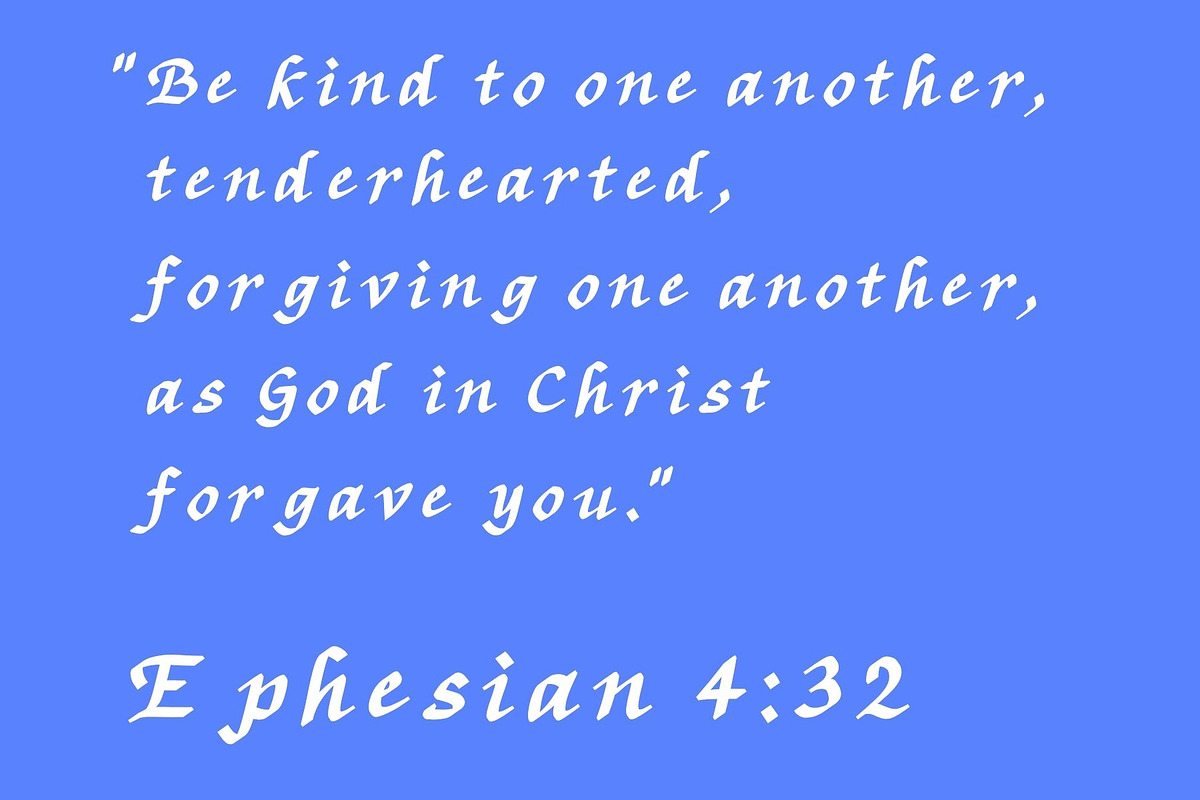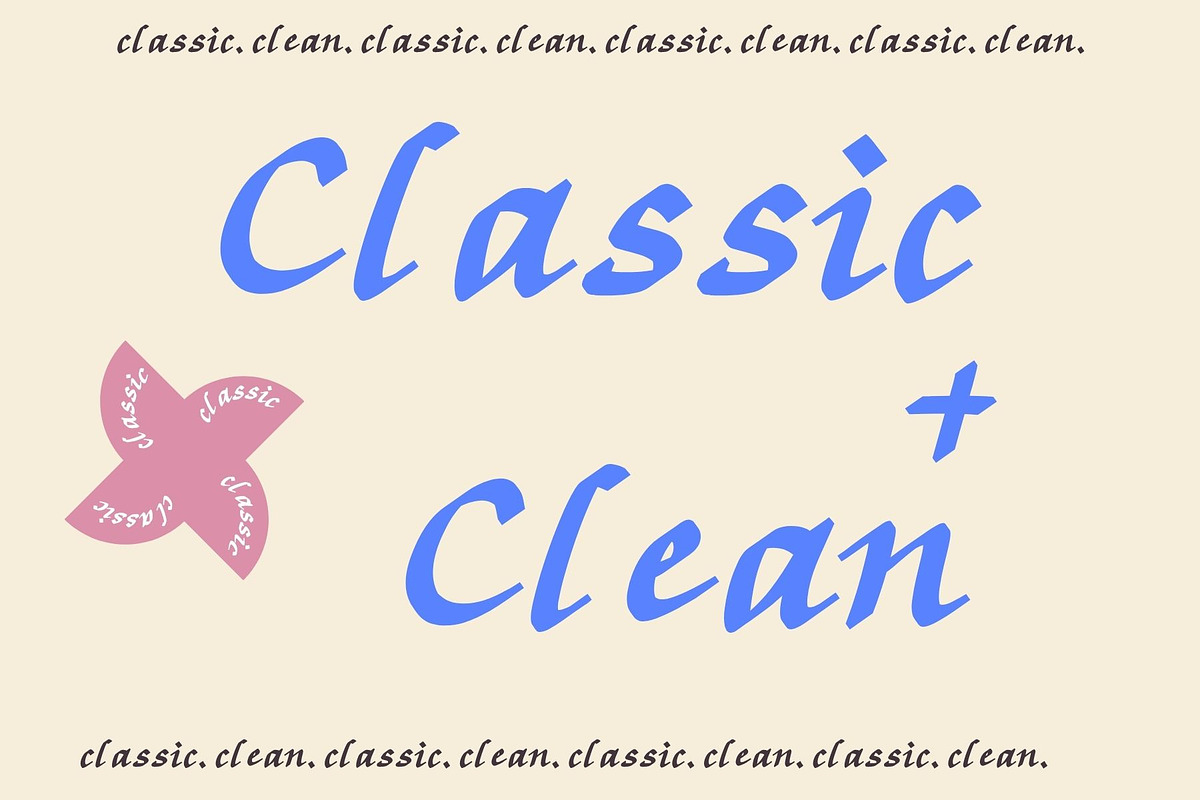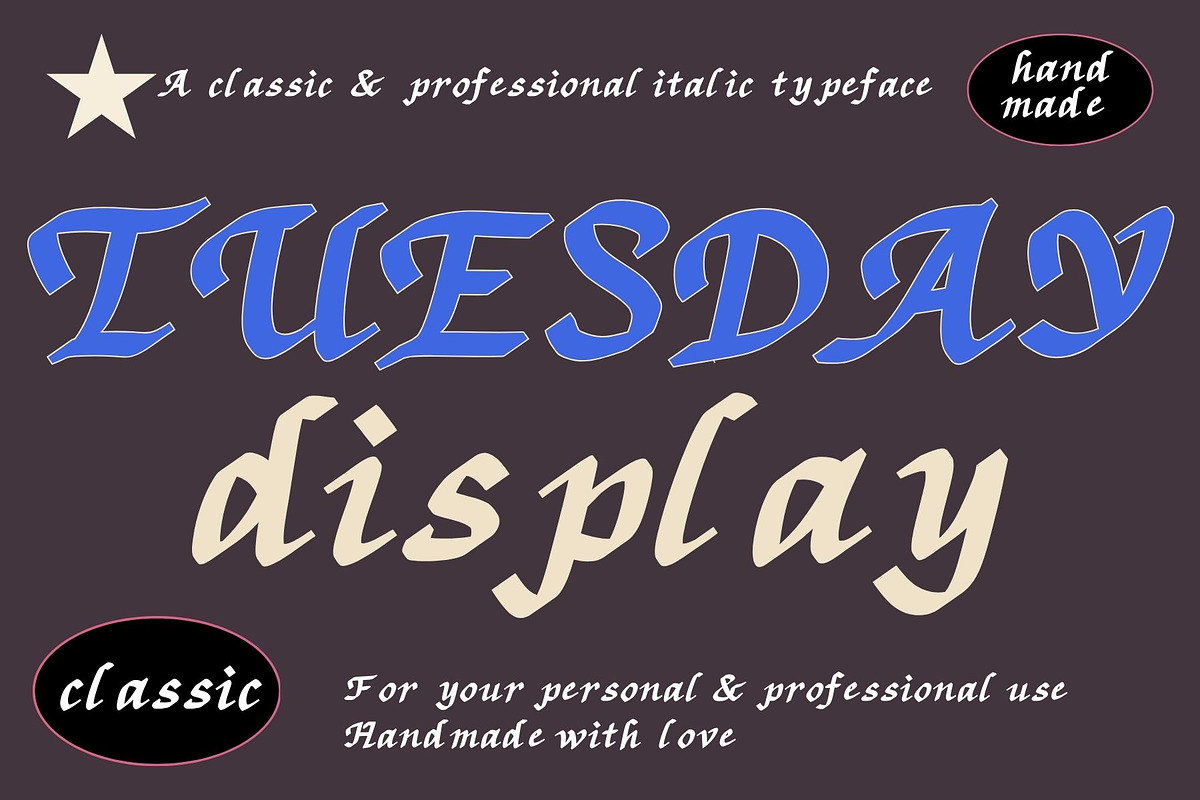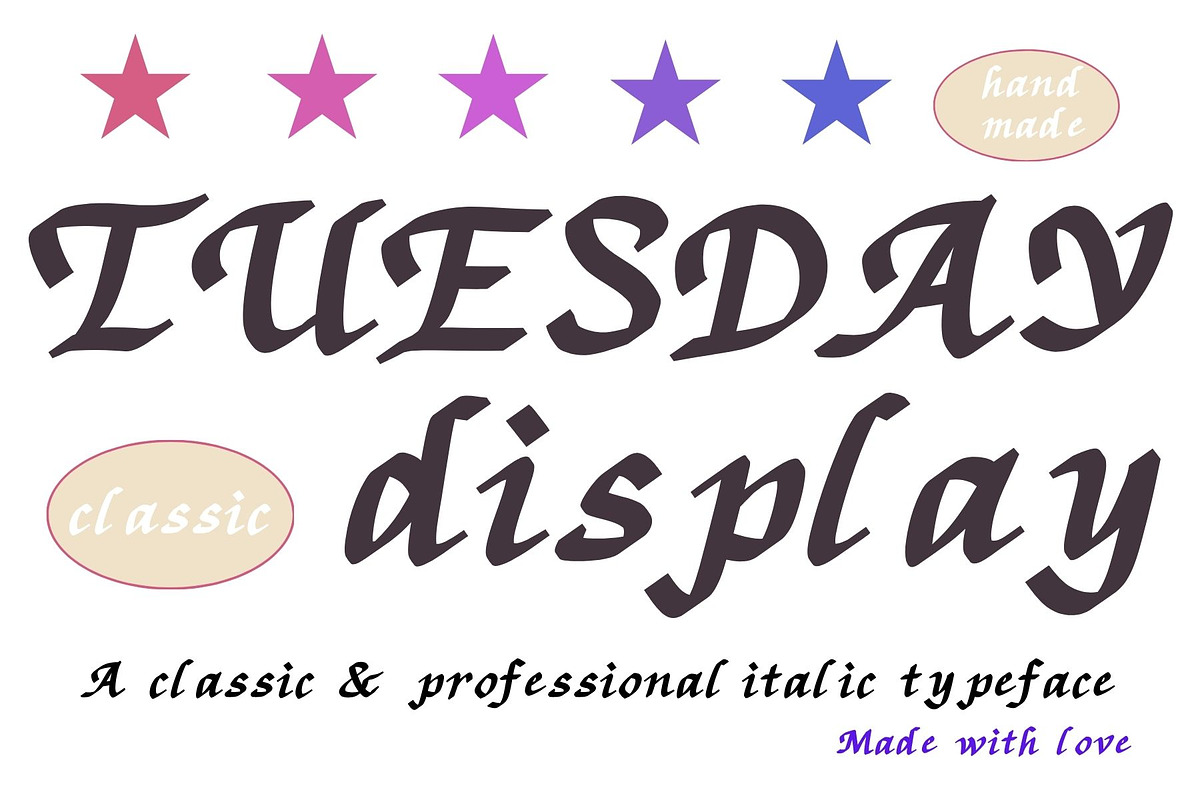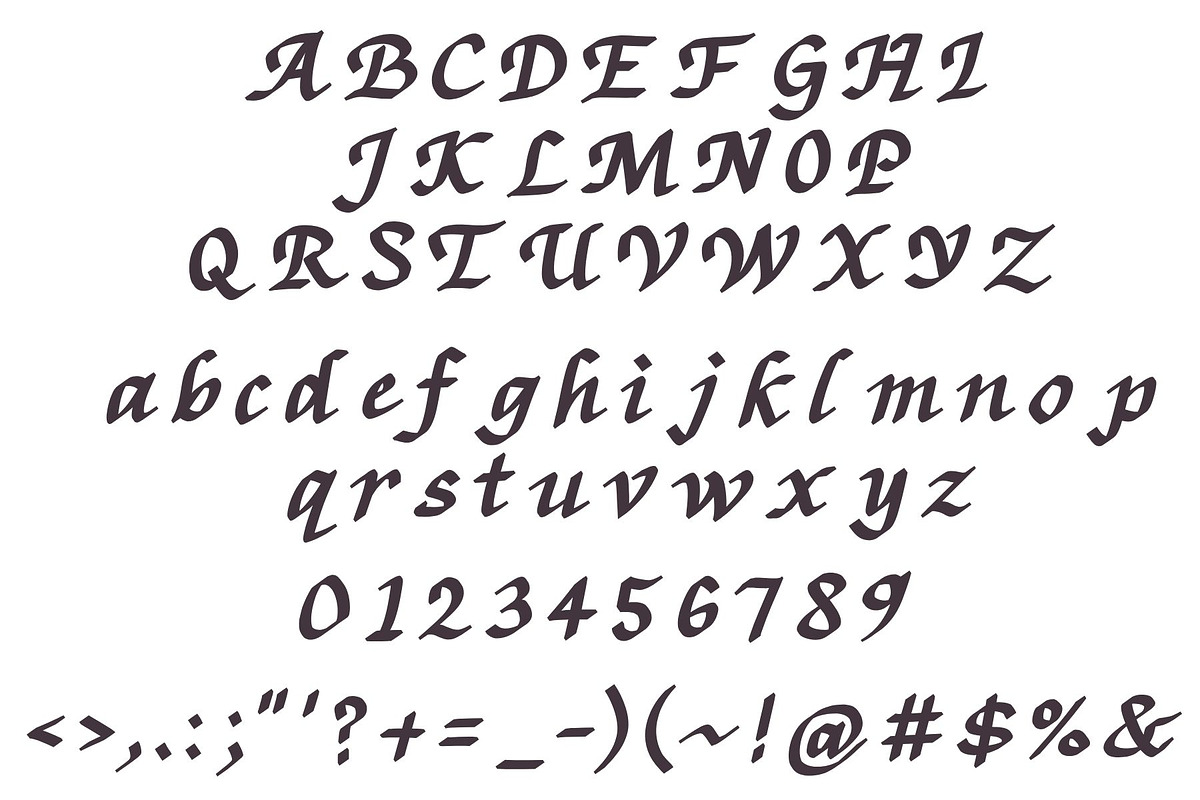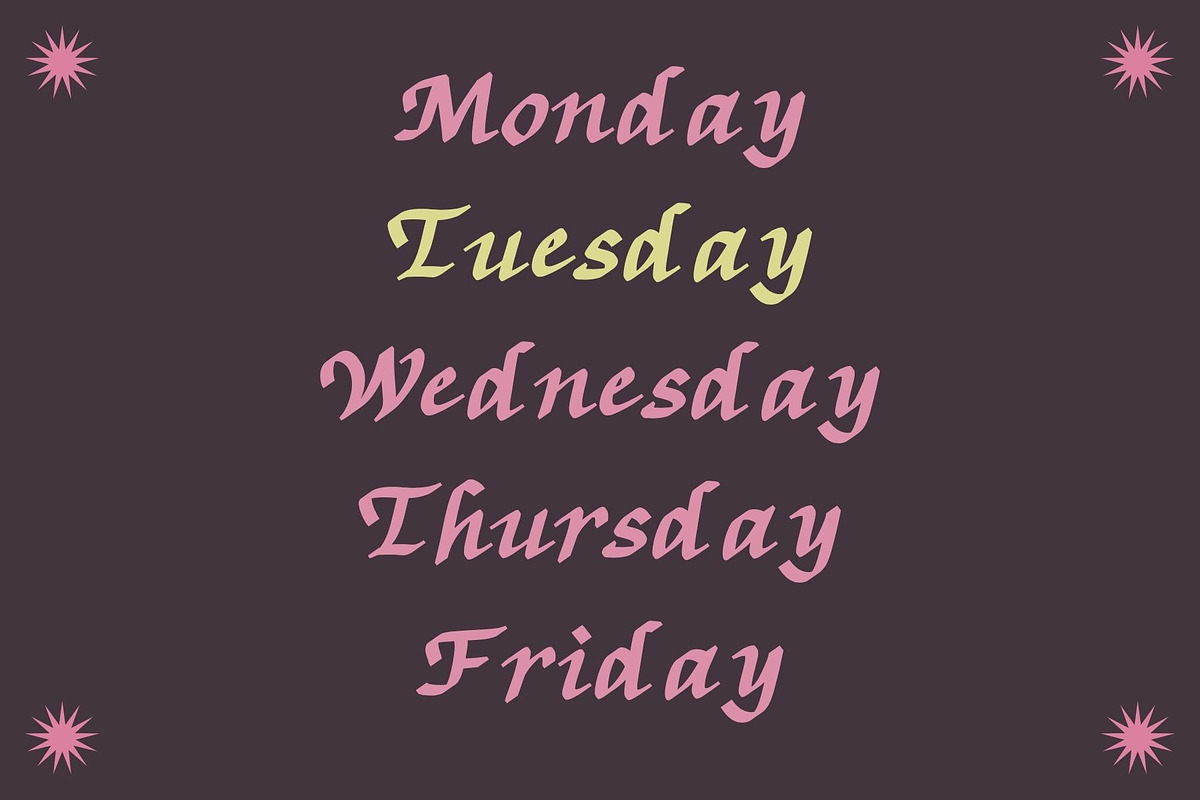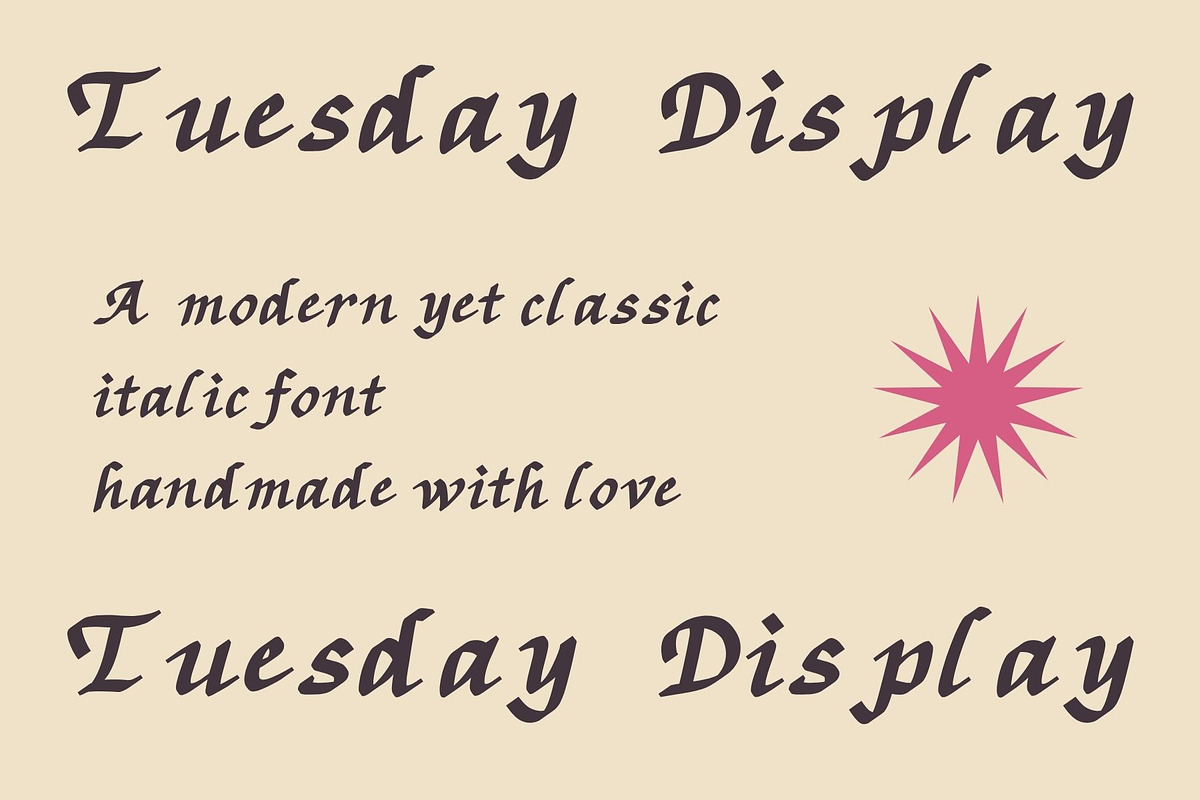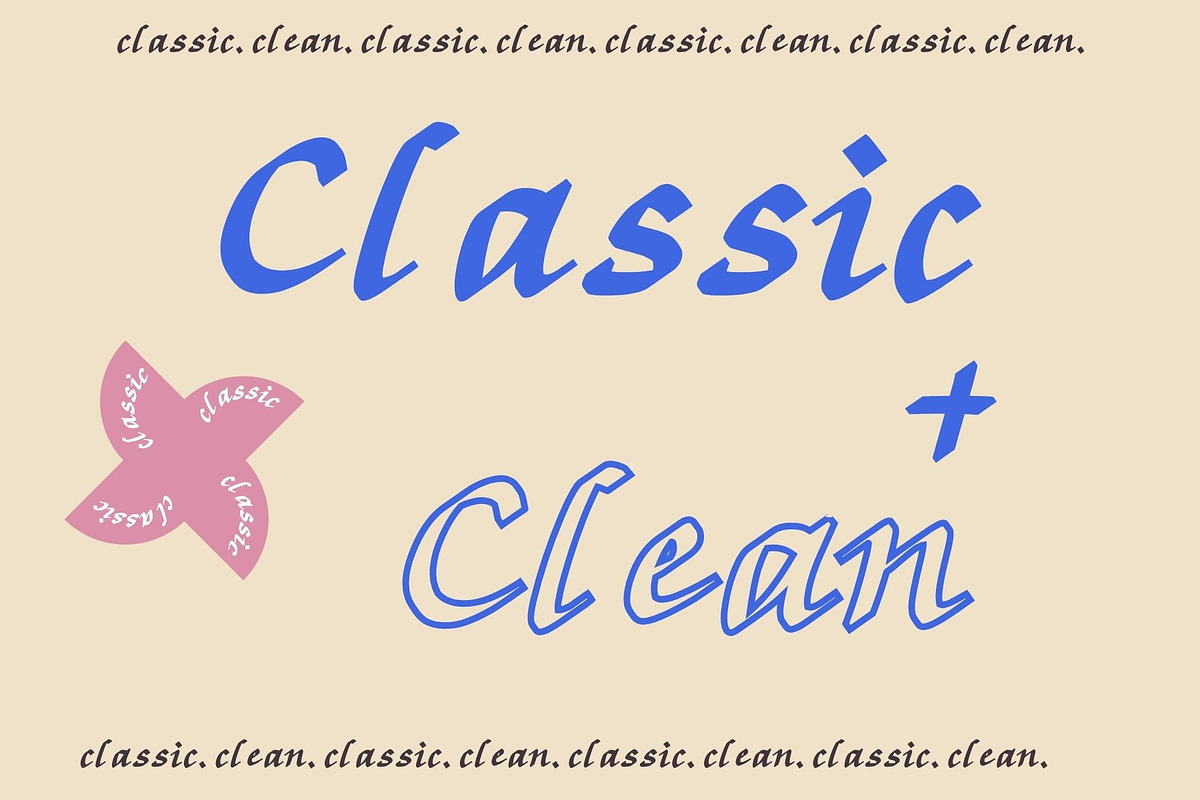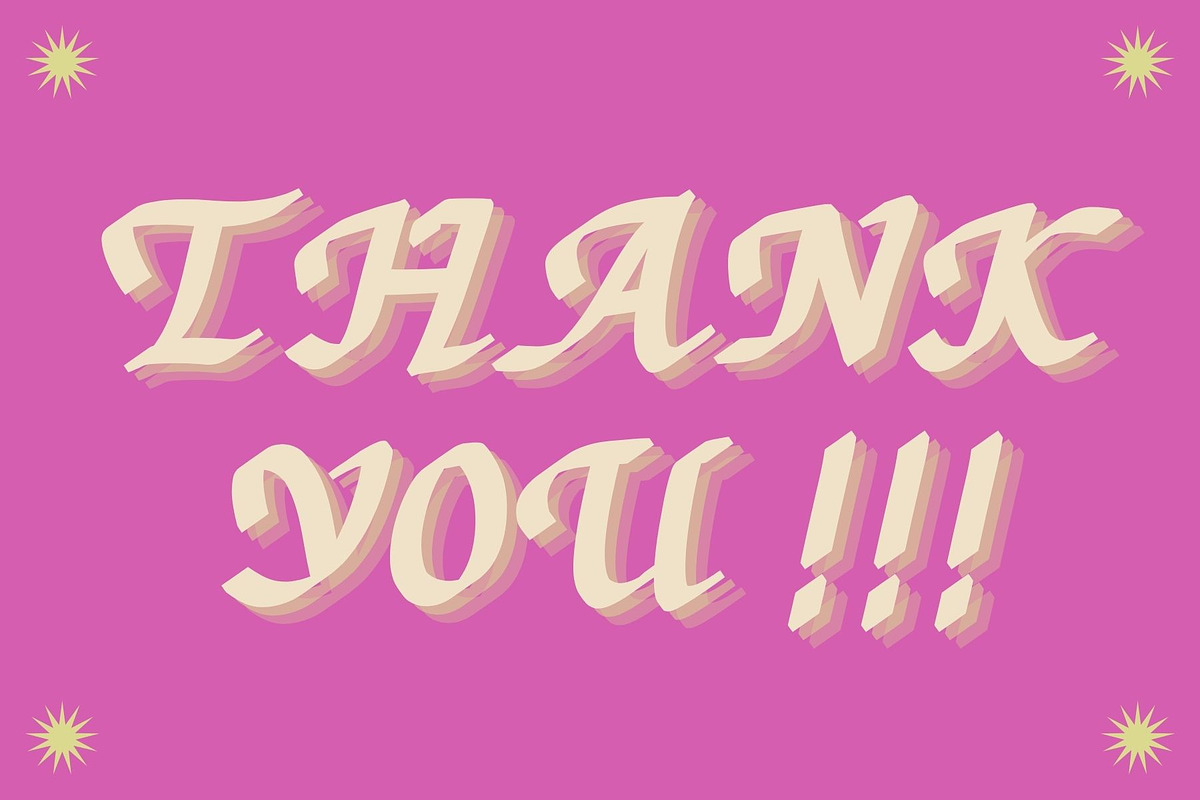
Tuesday Display Italic
Tuesday Display : A Handmade Classic Italic Font
Tuesday Display is a clean italic font, with a classic vintage italic feel, think 90s business, or 80s newspaper... This font features defined and clean accents , giving it a wonderful artful appearance. If you are looking for a professional look in your design project, look no further than Tuesday Display for a classic advertisement.